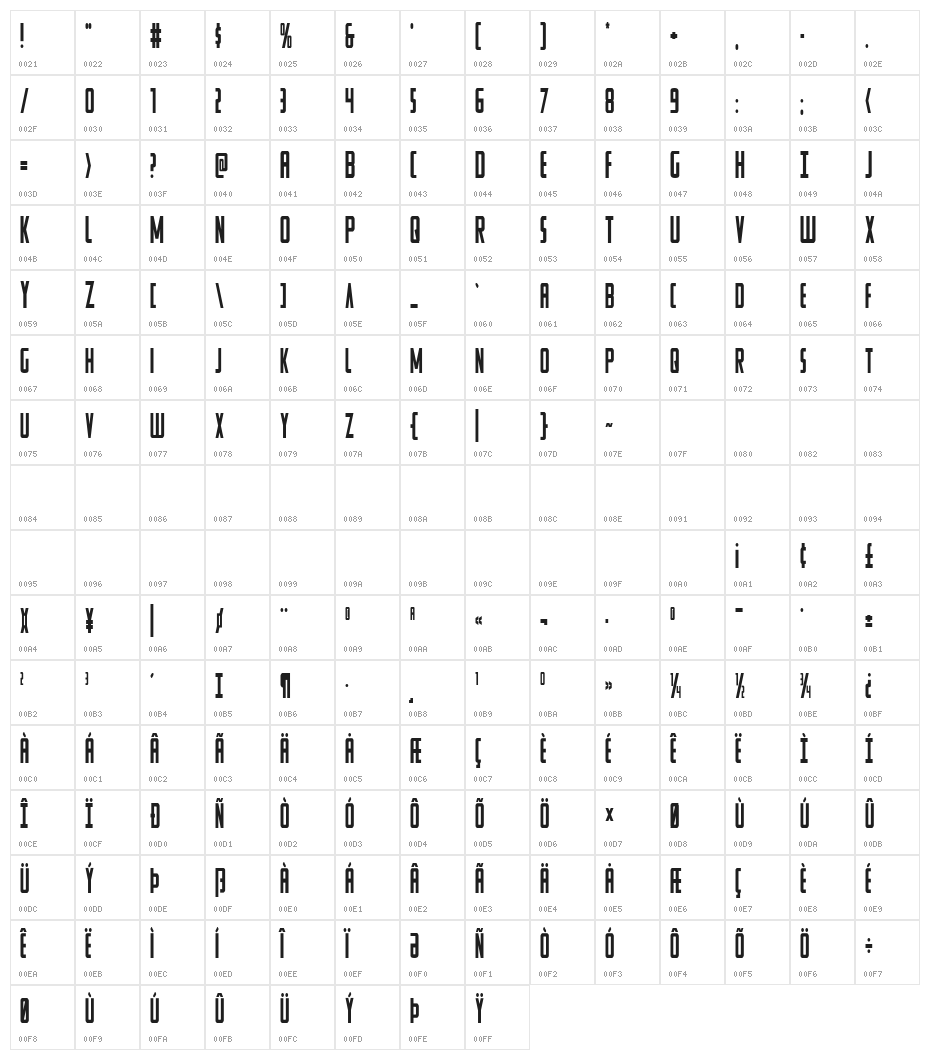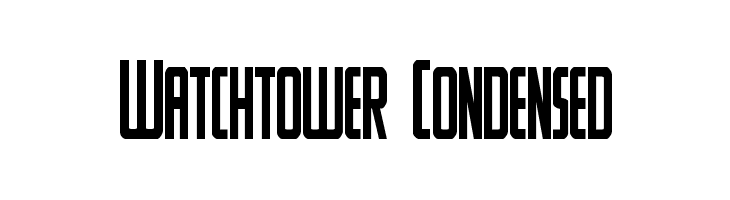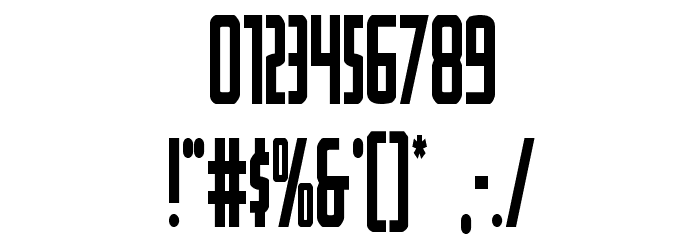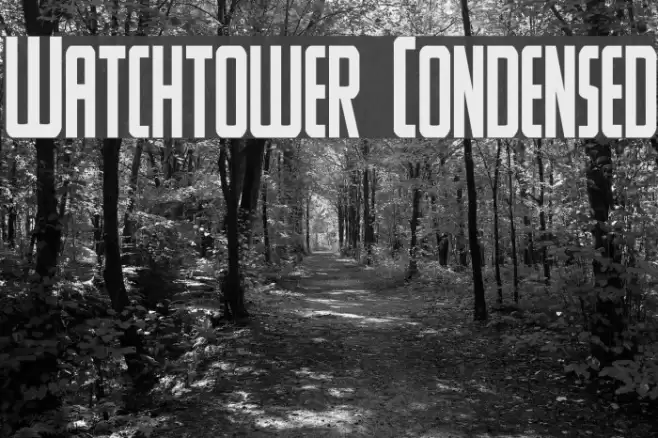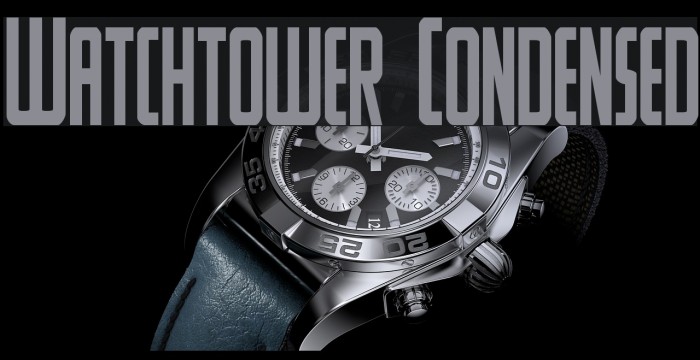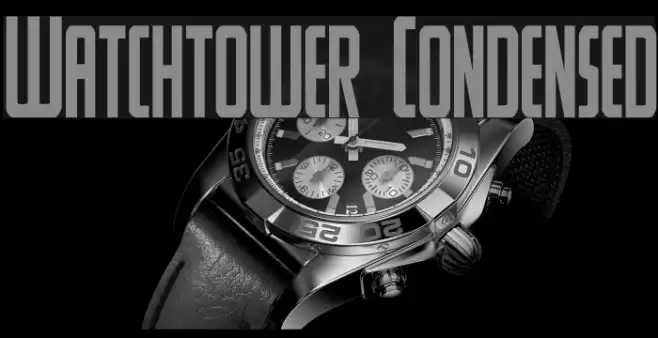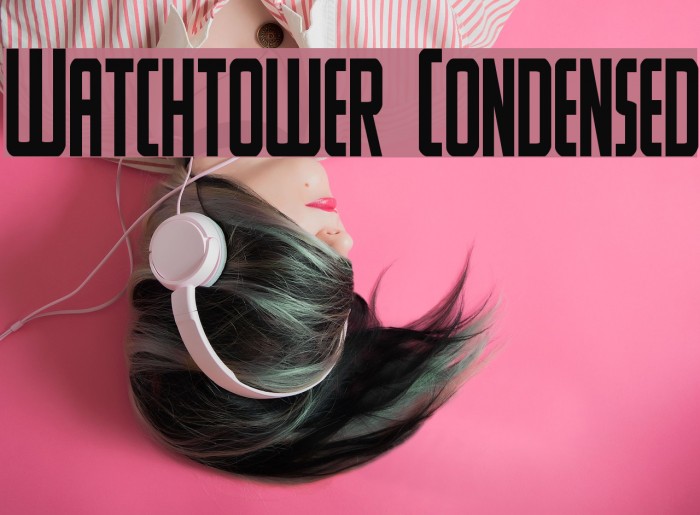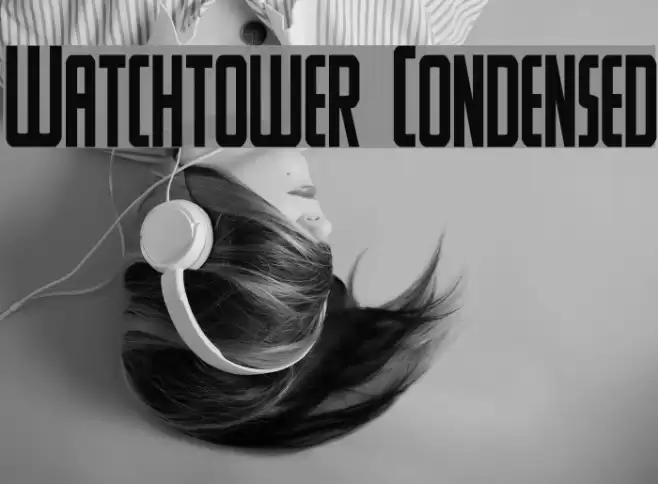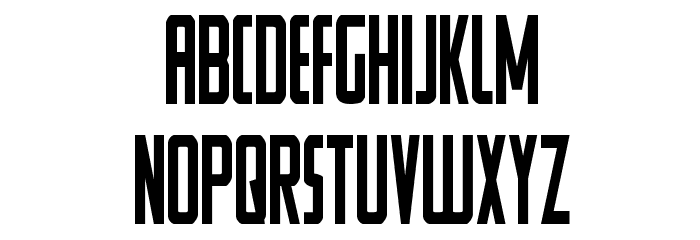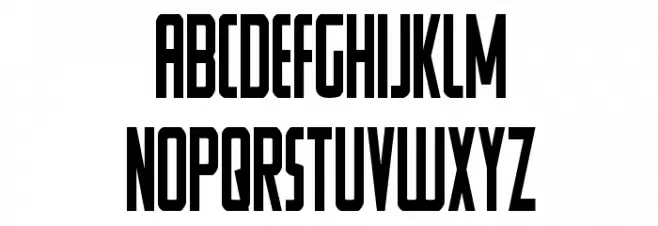
Watchtower Condensed Font
Watchtower Condensed Description
This font features a bold and condensed design, characterized by its tall and narrow letterforms. The uppercase and lowercase letters maintain a consistent height, creating a uniform appearance. The strokes are thick and uniform, providing a strong visual impact. The font includes a full set of uppercase and lowercase letters, numbers, and a variety of special characters. Its geometric structure and clean lines make it suitable for modern and impactful designs. The condensed nature allows for efficient use of space, making it ideal for headlines and titles where space is limited.
| Proposed Projects | Ideal for posters, headlines, branding, and any design requiring a strong, modern aesthetic. |